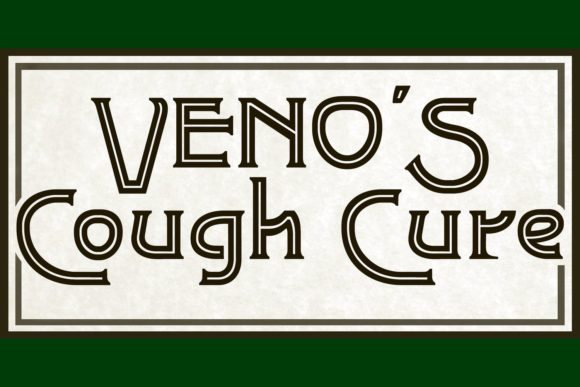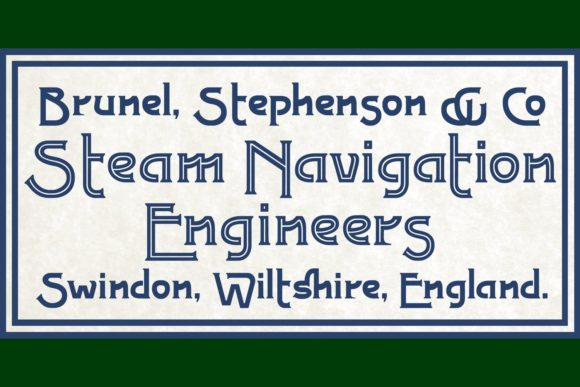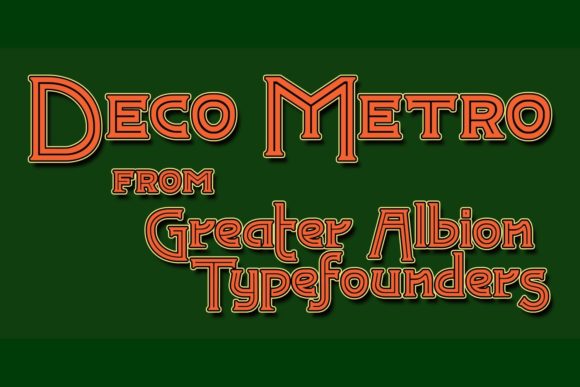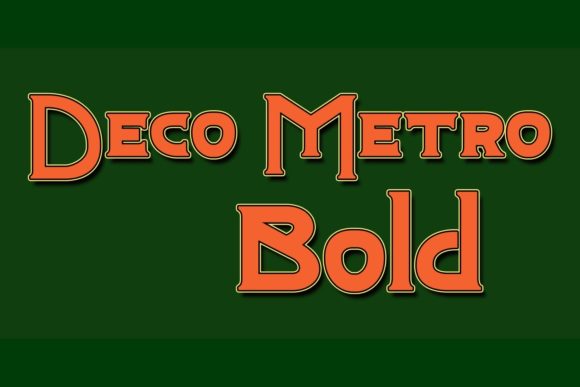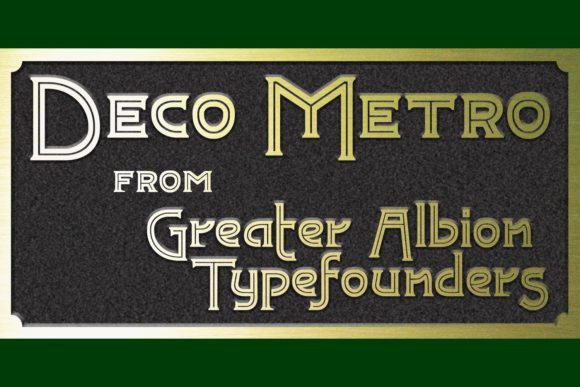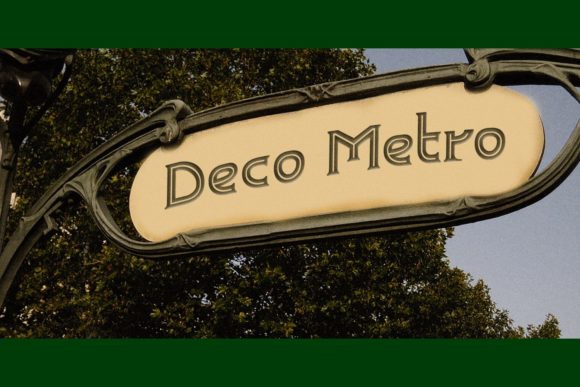
Discovering the Magic of Deco Metro Font
As a designer, have you ever been in the middle of a creative project, staring blankly at a blank canvas, searching for that one element to bring it all together? It’s a feeling we’ve all been there, but what if I told you that there’s a font that can instantly elevate your work and transport your audience to a bygone era?
Meet the Deco Metro Font, a stunning, vintage-styled display font that’s sure to become your new go-to design resource. With its high-quality design and transparent background, this font is the perfect addition to any creative project, allowing you to add a touch of sophistication and elegance to your work. And the best part? It’s available for free download, making it an invaluable asset for designers of all levels.
Key Features of Deco Metro Font
- High-quality font designed for creative projects, ideal for use in modern and urban-themed designs.
- Features a unique, stylized design with a transparent background, allowing for easy layering and customization.
- Designed with a high level of detail and precision, ensuring a crisp and clear appearance at various resolutions.
- Perfect for use in logos, typography-based designs, and other creative projects where a modern and edgy feel is desired.
Honest Review: Deco Metro Font
I recently had the chance to work with the Deco Metro Font, and I must say it’s been a game-changer for my creative projects. The font’s sleek, modern design ✨ adds a touch of sophistication to any layout.
One of the things I love about the Deco Metro Font is its versatility. It can be used for both digital and print designs, making it a valuable resource for any designer. Plus, it’s available for a free download, which is always a bonus!
- Works well with both transparent backgrounds and solid colors
- May not be suitable for projects that require a more classic or traditional font style ⚠️
- Some users may find the font’s bold lines to be a bit overwhelming
Overall, I’m really impressed with the Deco Metro Font. Its modern design and versatility make it a valuable addition to any designer’s toolkit. If you’re looking for a high-quality font for your next creative project, I highly recommend giving it a try.
Experiment with different font sizes, colors, and styles to create unique visual effects. Combine the Deco Metro Font with other design elements, such as images and shapes, to add depth and interest to your design.
The Deco Metro Font is ideal for a wide range of creative projects, including:
- Graphic design and branding
- Print design and marketing materials
- Digital art and illustration